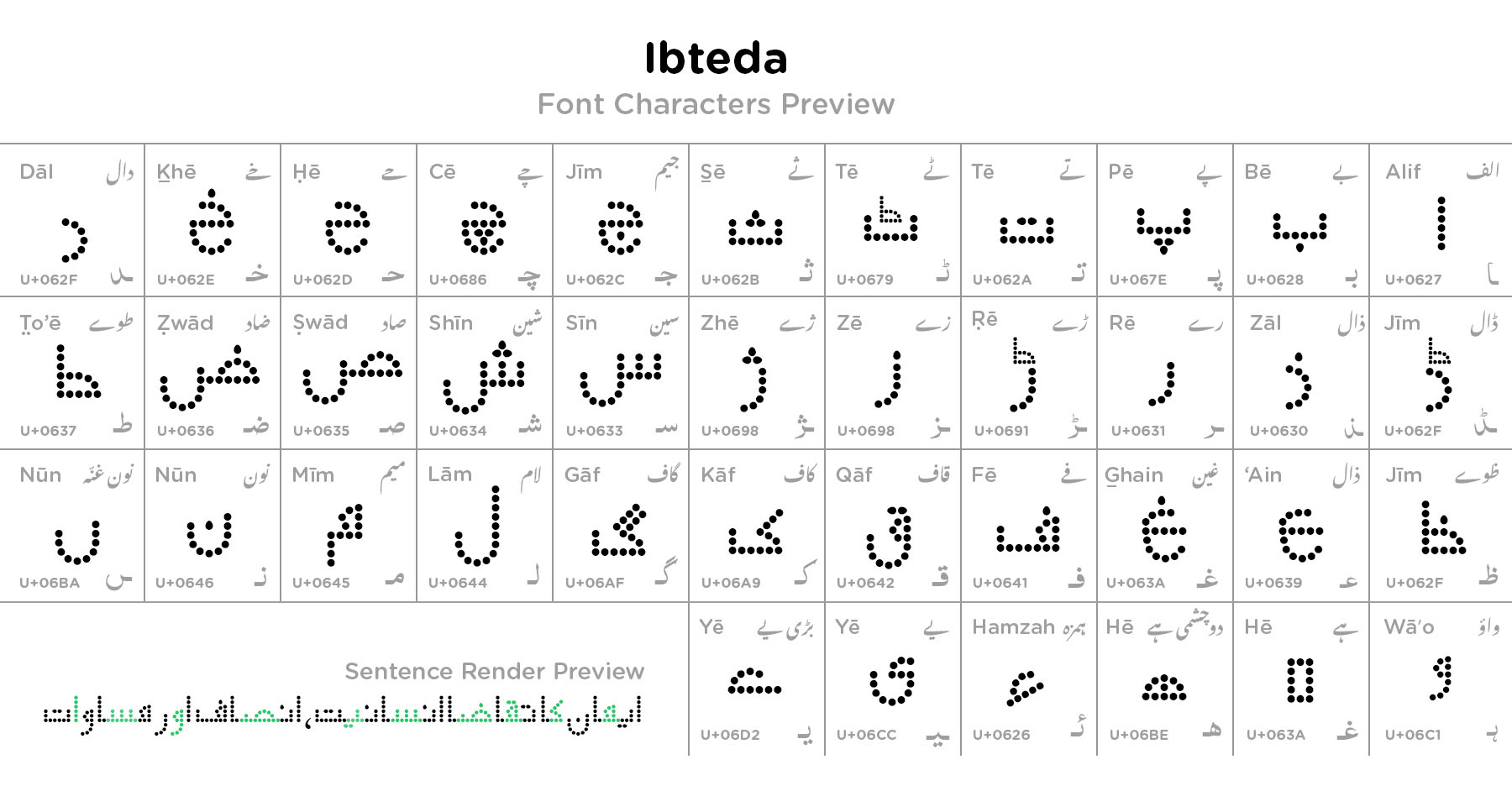
Ibteda is a TrueType Arabic typeface designed by Syed Manzar Hasan Zaidi. This font is the property of Axis Softmedia Pvt. Ltd. Mumbai, India. The font includes an extensive character set that covers all of the letters, punctuations, and necessary symbols used in Arabic writing. It has a character set of 432 and 497 number of glyphs. It has support for Arabic, Latin, and Greek, making it a versatile and flexible font. This font also has an italic version which further adds to its appeal. The design of the font is quite peculiar. The letters are made of small interconnected filled circles, joined together like a chain. It has generous space between the letters and smooth curves. Furthermore, it is compatible with 11 Unicode blocks such as Basic Latin, Arabic, Greek and Coptic, Letterlike Symbols, and Currency Symbols among others. Even when zoomed in or printed in small ratios, it holds a high level of clarity. However, the font has very low practicality in digital media, such fonts are mostly seen in posters or children-related books and accessories.